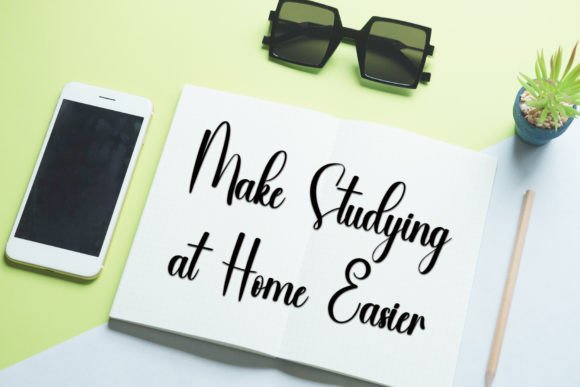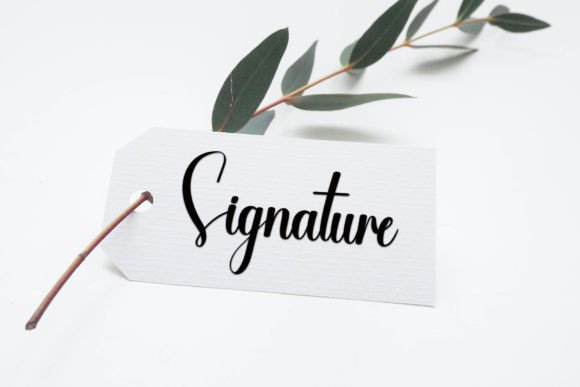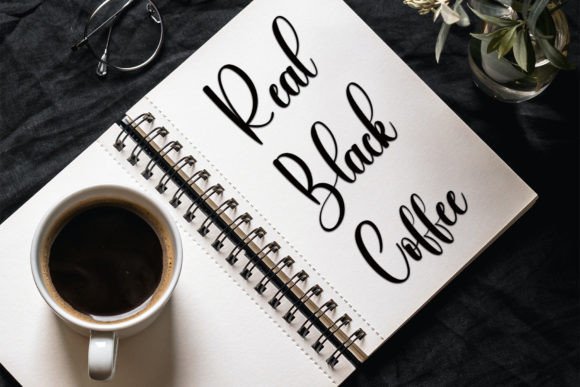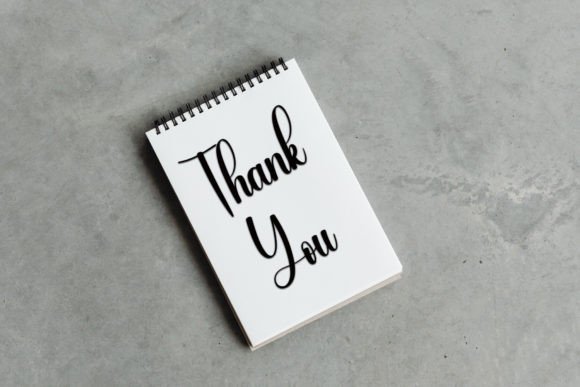
Introduction to Original Font
Do you remember that moment when you’re brainstorming ideas for a creative project and the perfect font just clicks into place? It’s like the whole design comes together in an instant, and you can’t wait to see it come to life. For designers, finding that perfect font can be a game-changer, elevating a project from good to great.
Enter the Original Font, a stylish handwritten font with a contemporary atmosphere and impeccable form. This beautiful font is inspired by the timeless classic calligraphy, making it a valuable resource for any designer looking to add a touch of sophistication to their work. With its balanced and varied design, the Original Font is perfect for creatives who want to enhance the beauty of their projects without sacrificing quality.
Key Features of Original Font
- Perfect for creative projects, including graphic design, digital art, and typography
- Original Font’s unique design style and character set make it an excellent addition to any design collection
Honest Review: Original Font
As a designer, I’m always on the lookout for high-quality design resources that can elevate my creative projects. Recently, I had the chance to try out the Original Font, and here’s my honest review.
- Professional look: The Original Font has a sleek and modern design that’s perfect for creating a professional look in any project.
While the Original Font is a great resource, I did encounter a few limitations:
- Limited styles: The font only comes in a few styles, which might limit its versatility for certain design projects.
- No bold or italic options: Unfortunately, the Original Font doesn’t have bold or italic options, which might be a drawback for some designers.
Overall, the Original Font is a solid addition to any designer’s toolkit. While it has some limitations, its high quality and ease of use make it a great resource for creative projects. With a little creativity, you can work around its limitations and achieve some amazing results.
The Original Font is suitable for a wide range of design projects, including logos, business cards, and brochures. Its high-quality design makes it an excellent choice for any creative project that requires a professional touch.